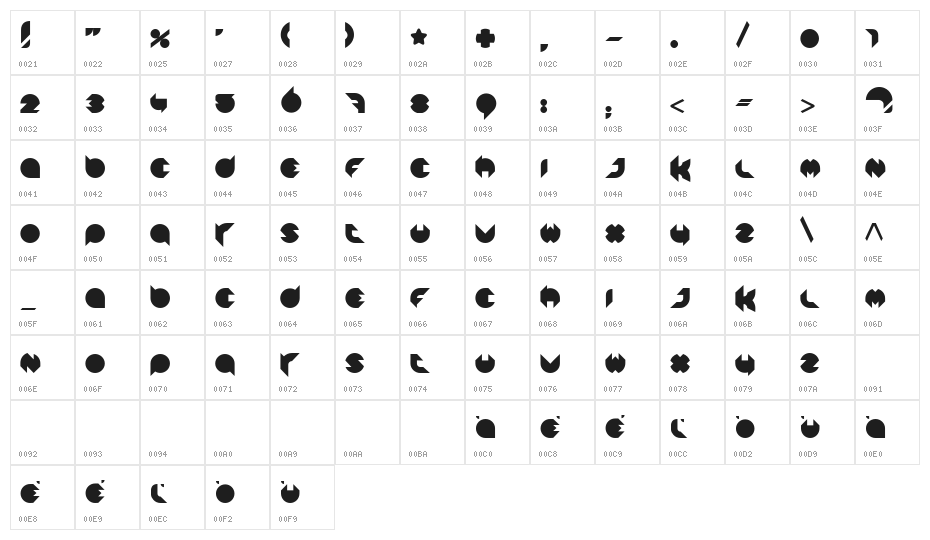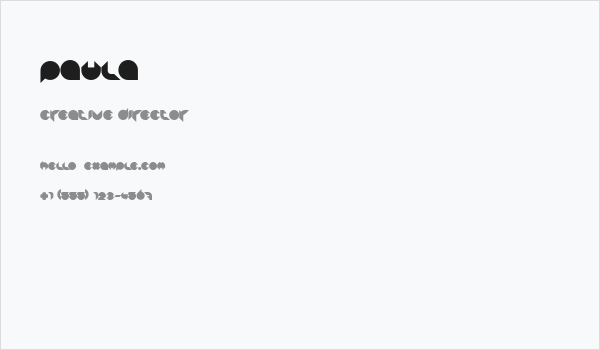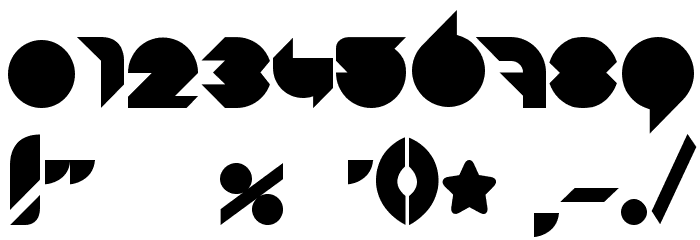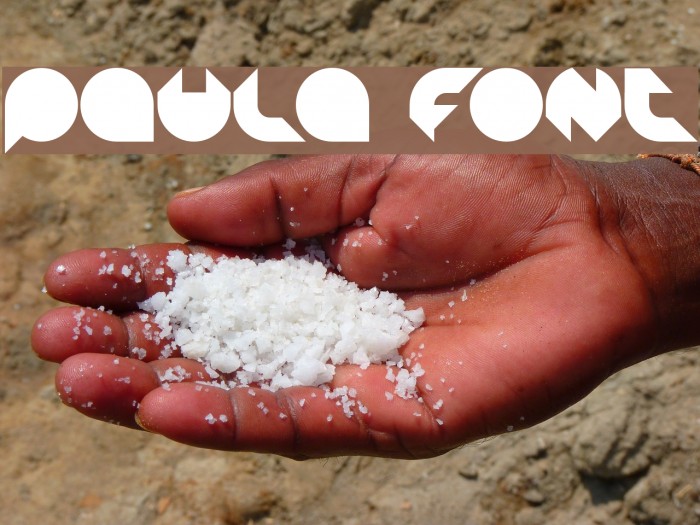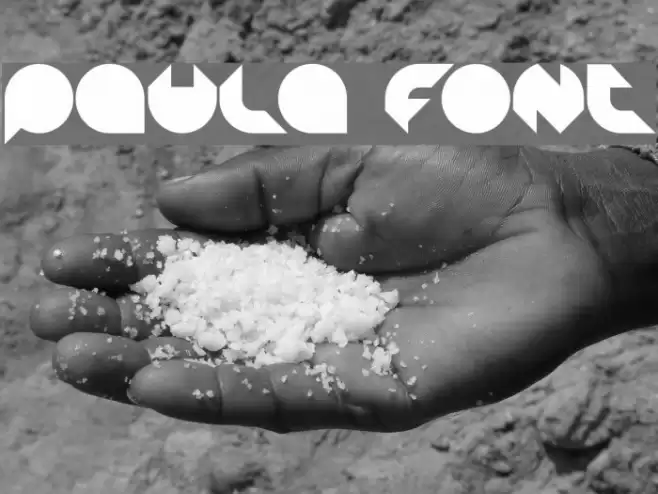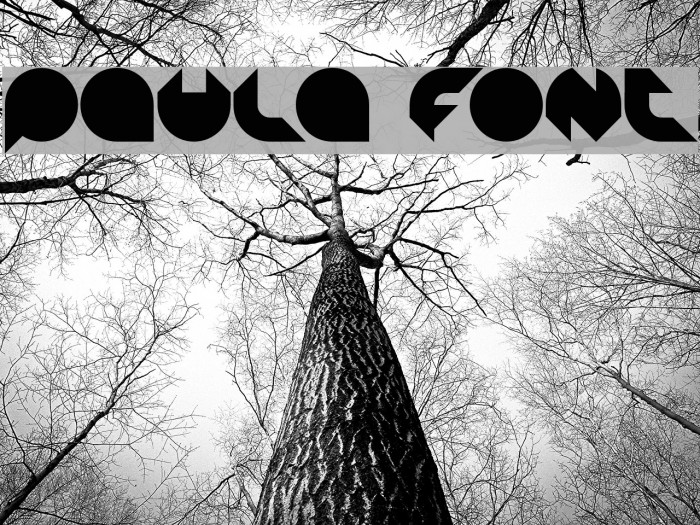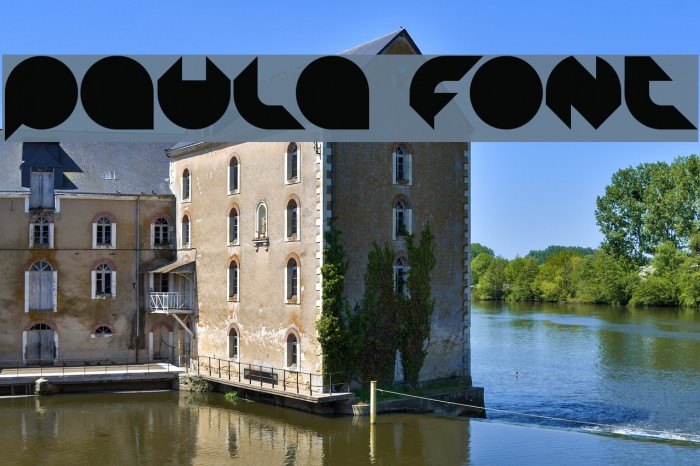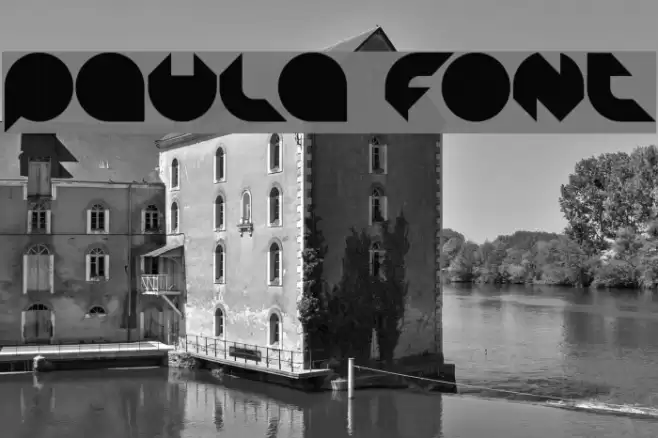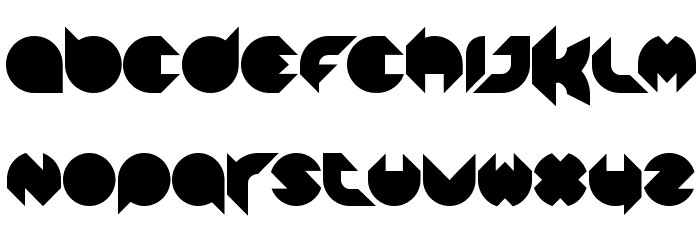
Paula Font
Paula Description
This font features a bold and geometric design with sharp angles and a futuristic aesthetic. The characters are constructed with a combination of circular and triangular shapes, creating a dynamic and edgy appearance. The uppercase and lowercase letters share a consistent style, emphasizing symmetry and balance. Numbers and special characters maintain the same boldness and geometric structure, ensuring uniformity across all glyphs. The font's unique style makes it ideal for projects that require a modern and eye-catching typeface.
| Overall Style | Futuristic, Modern |
| Use Case | Logos, Headlines, Posters |
| Proposed Projects | Ideal for branding, posters, album covers, and any project needing a modern, standout typeface. |